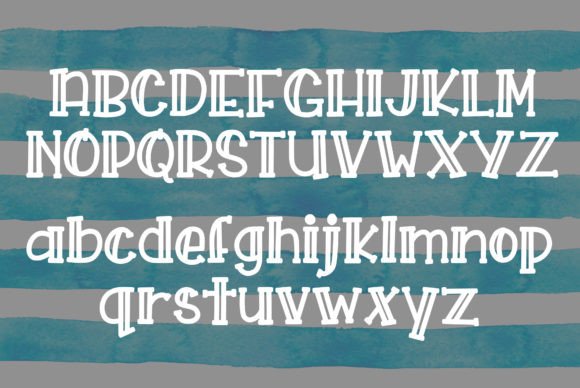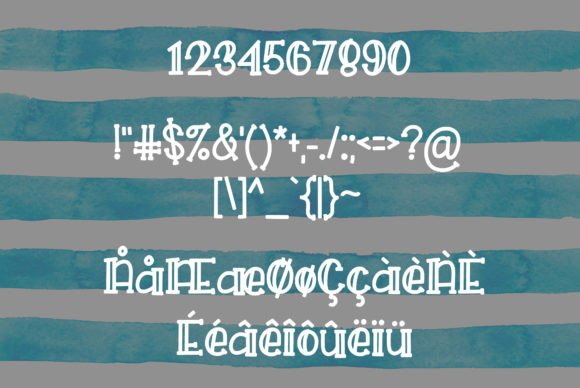
Introducing Beluga: The Playful Handwritten Font That Brings Joy to Your Designs
Have you ever been in the middle of a design project, and suddenly, you’re stuck on finding the perfect font? I recall a recent experience where I was working on an ocean-themed children’s book, and my client’s request was simple yet challenging: find a font that captures the essence of fun and creativity. After scouring through numerous font libraries, I stumbled upon Beluga, a charming handwritten font that instantly brought a splash of personality to my design. In this article, I’ll share my journey with Beluga, its unique features, and how you can make the most of this delightful font in your next project.
A Personal Encounter with Beluga
As I began experimenting with Beluga, I was immediately drawn to its bold, playful letters that seemed to dance on the page. The font’s whimsical style was perfect for my ocean-themed project, and I knew I had found the perfect fit. But what really sets Beluga apart is its ability to bring a sense of joy and creativity to any design. Whether you’re working on a children’s book, a craft project, or a social media graphic, Beluga is sure to make your designs stand out.
An Honest Review of Beluga
- ✨ Unique and Whimsical Style: Beluga’s bold, playful letters bring a splash of personality to any design.
- ✅ Perfect for Ocean-Themed Projects: The font’s oceanic feel makes it ideal for projects related to the sea or underwater themes.
- 🌟 Easy to Read: Despite its playful nature, Beluga remains clear and readable, even at smaller sizes.
- 💡 Versatile: Suitable for a wide range of design projects, from children’s books to social media graphics.
While Beluga is an excellent font, there are a few minor considerations to keep in mind:
- 🤔 Limited Formality: Beluga’s playful nature might not be suitable for projects requiring a more formal or traditional look.
- ⚠️ Glyph Limitations: As with any font, some special characters or glyphs might be limited or require additional installation.
The Backstory of Beluga
Beluga was inspired by the playful nature of ocean creatures and the beauty of handwritten typography. The designer aimed to create a font that not only captures the essence of fun and creativity but also brings a sense of joy to the reader. With Beluga, you can add a personal touch to your designs and make them stand out from the crowd.
Q: What makes Beluga unique?
A: Beluga’s unique blend of bold, playful letters and whimsical style sets it apart from other fonts.
Q: Does Beluga support OpenType features?
A: Yes, Beluga supports OpenType features like ligatures and stylistic alternates, which can enhance your designs.
Q: Is Beluga suitable for children’s books?
A: Absolutely! Beluga’s playful and whimsical style makes it perfect for children’s books and educational materials.